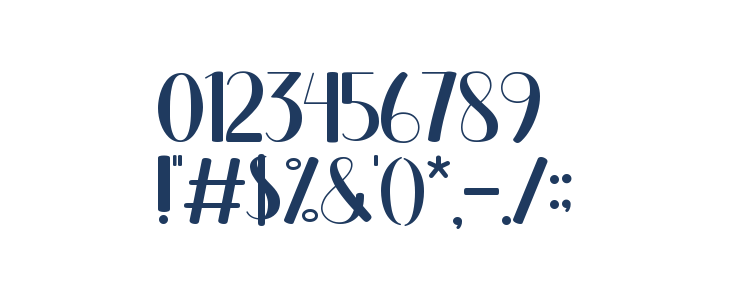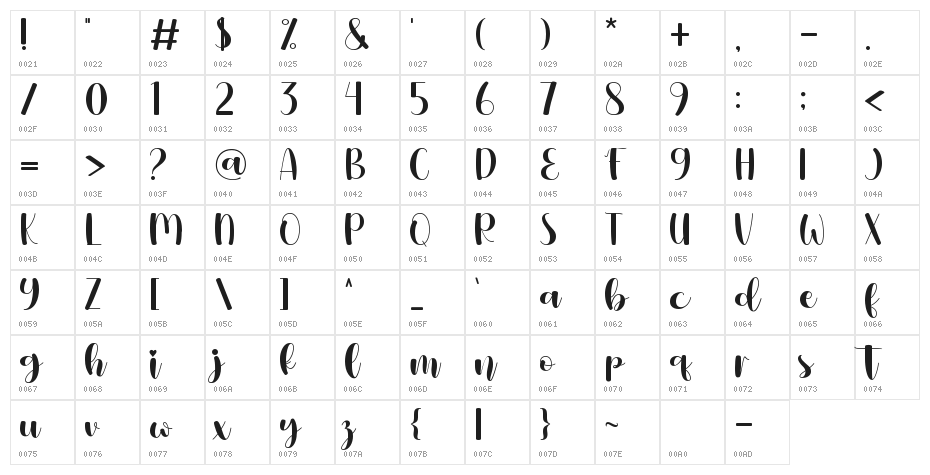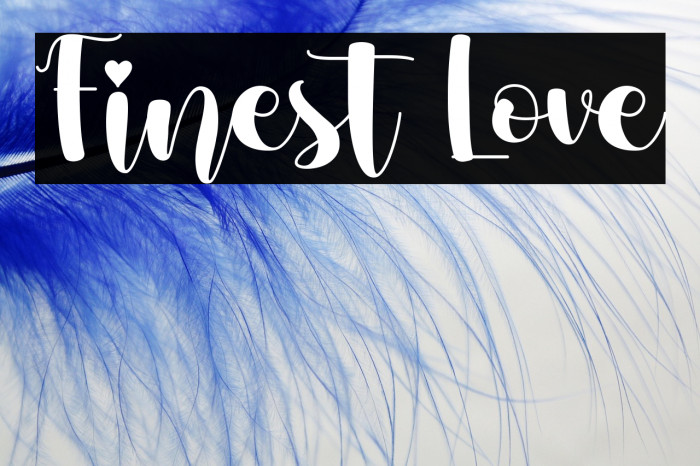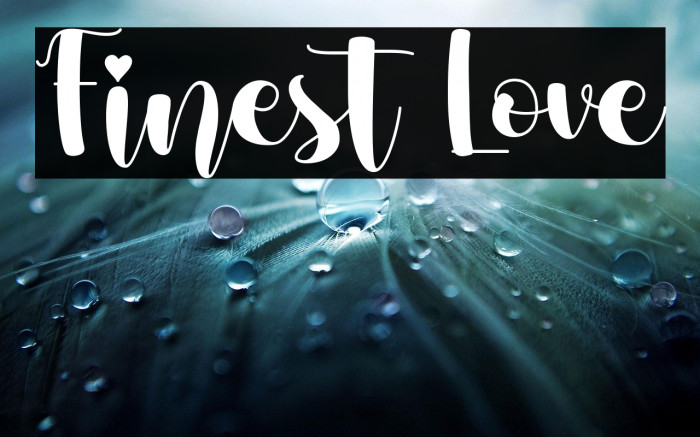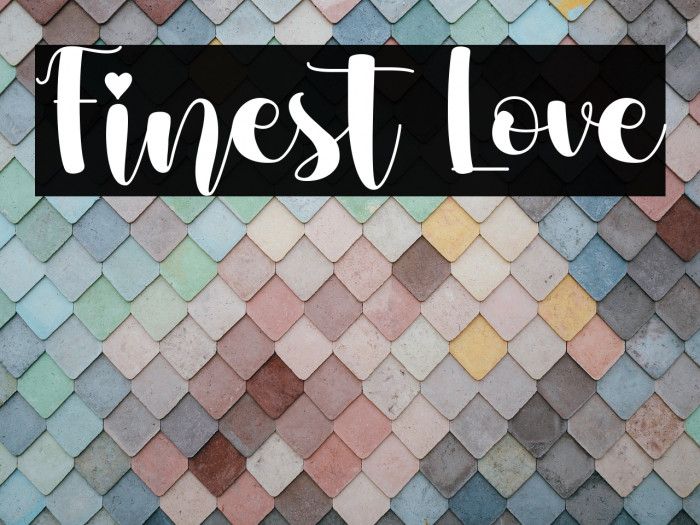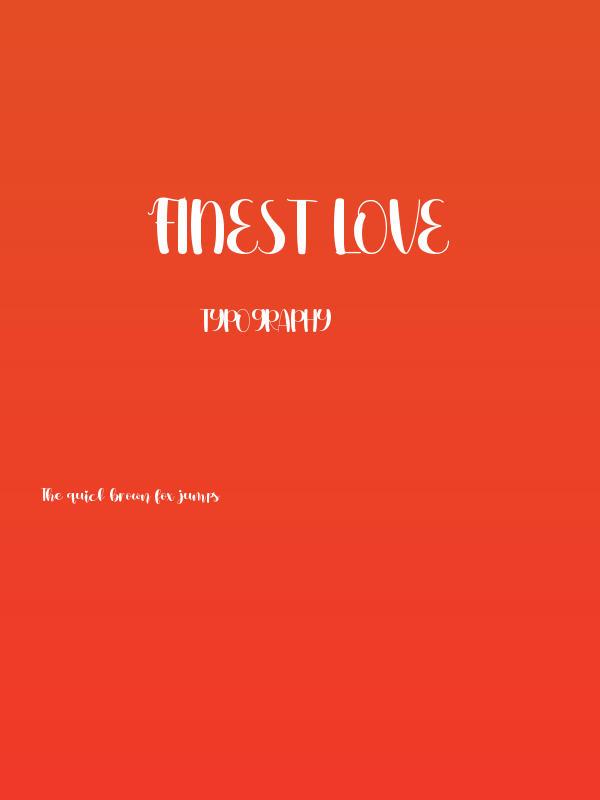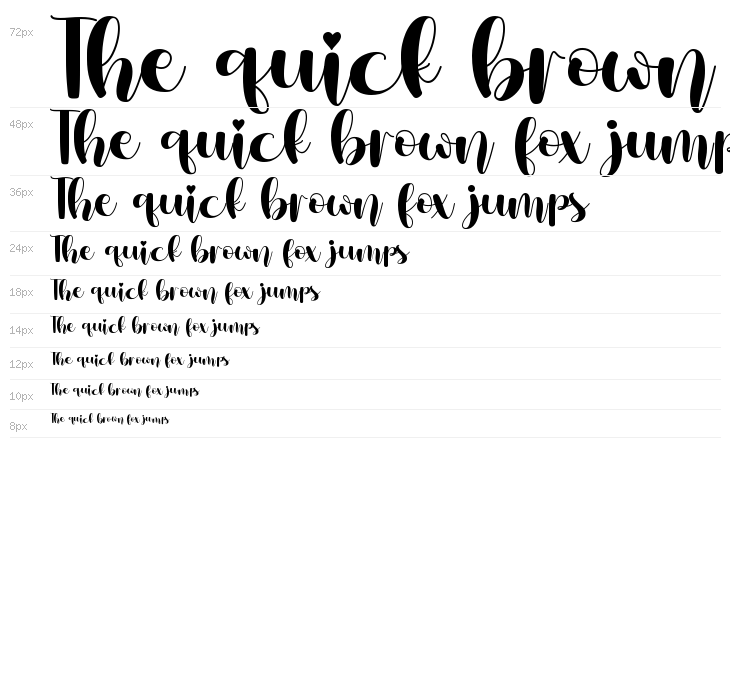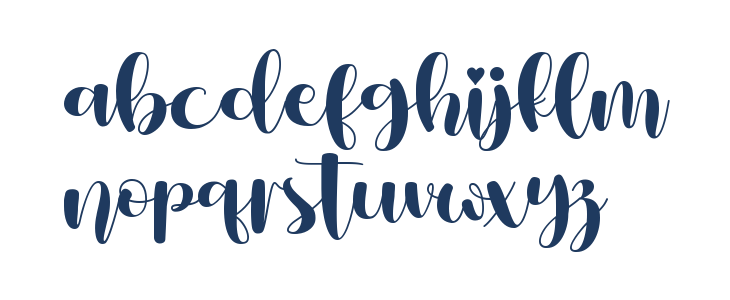
Finest Love Font
Finest Love Description
This font features a playful and elegant script style with a modern twist. The uppercase letters are tall and slender, with a mix of thick and thin strokes that add a dynamic feel. The lowercase letters are more rounded and feature charming loops and swashes, giving the font a whimsical and romantic appearance. The numbers are bold and slightly condensed, maintaining the playful aesthetic. Special characters are creatively designed, with some incorporating heart motifs, enhancing the font's decorative nature. The overall design is cohesive and visually appealing, making it suitable for a variety of creative projects.